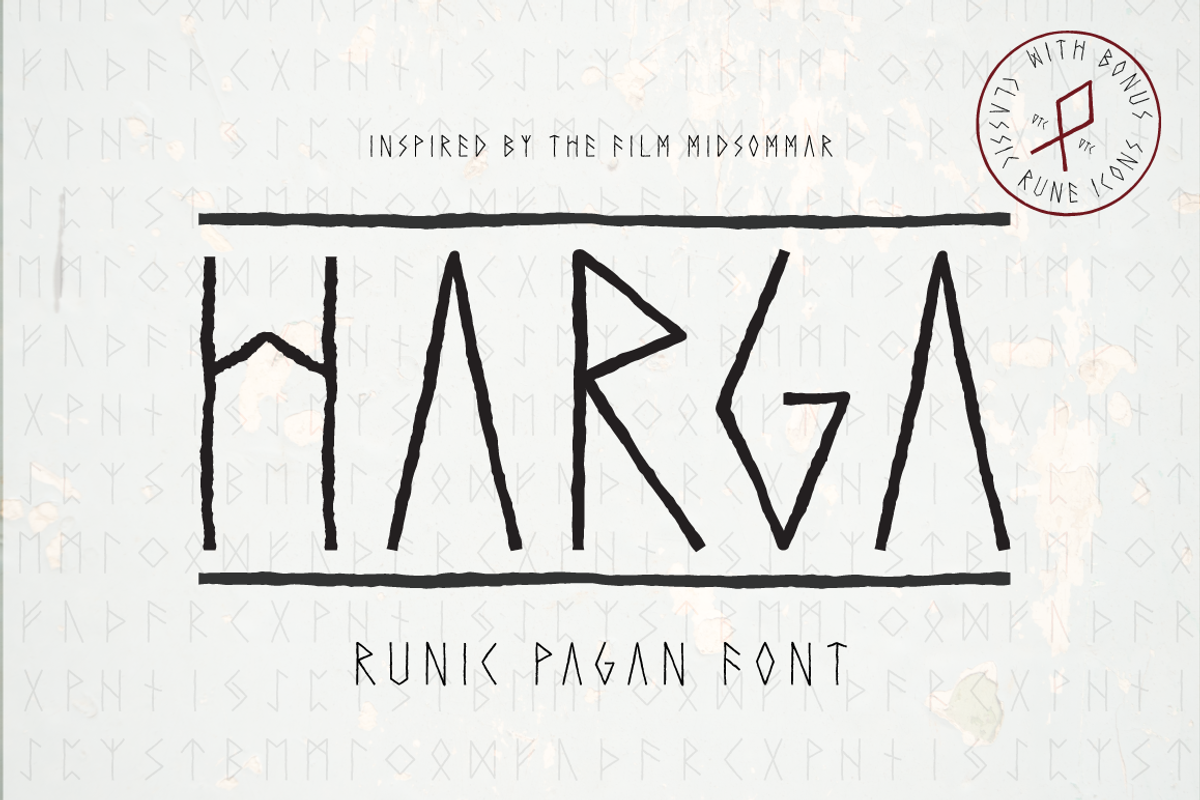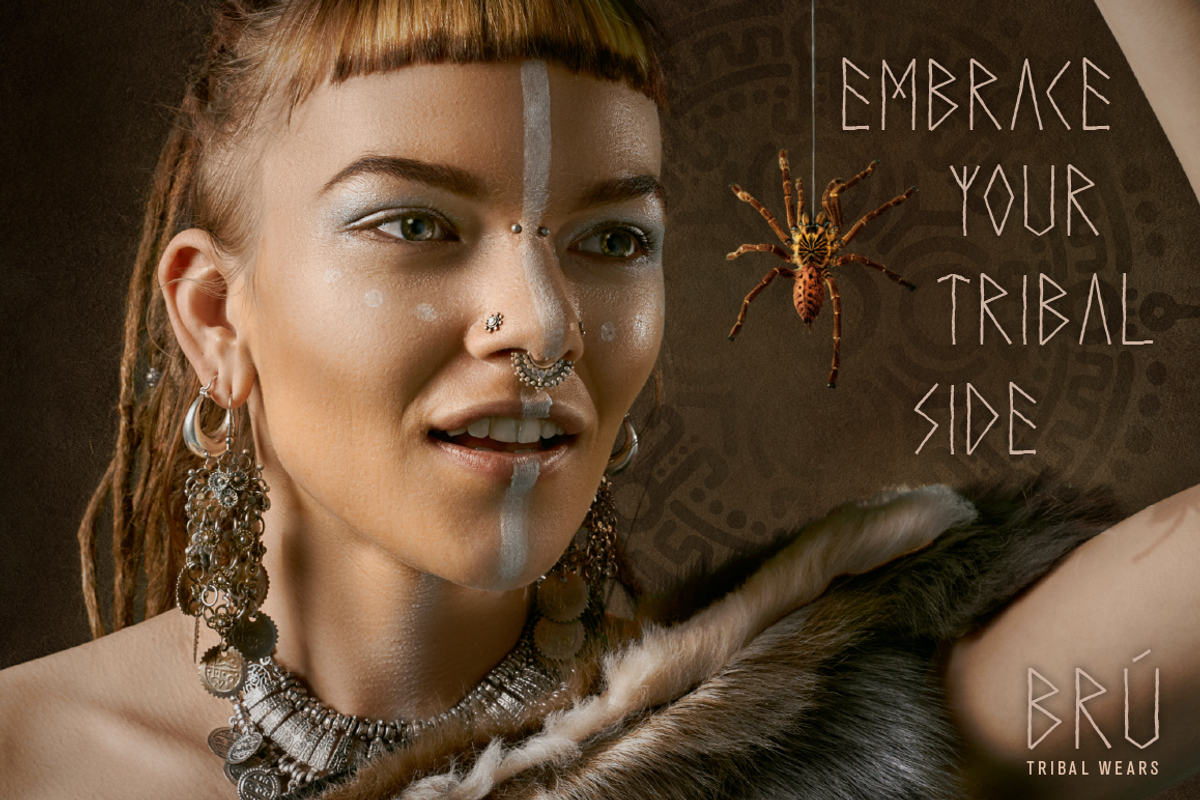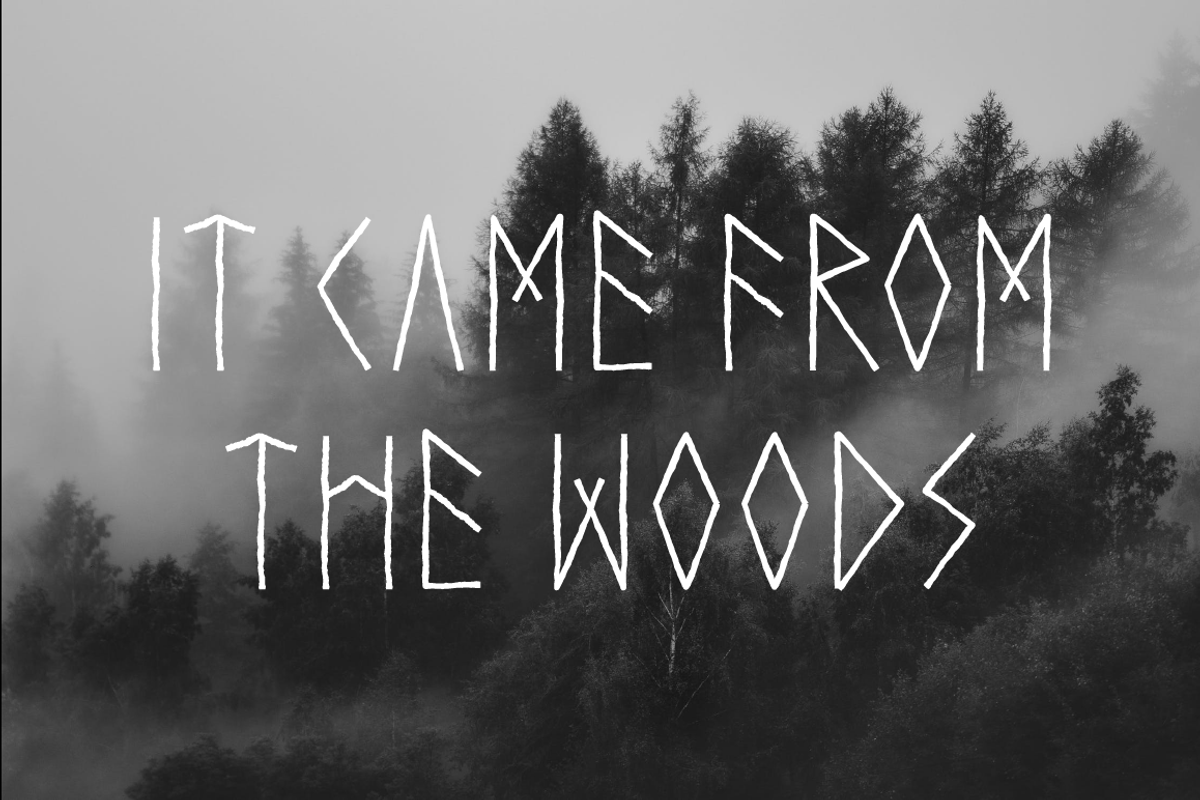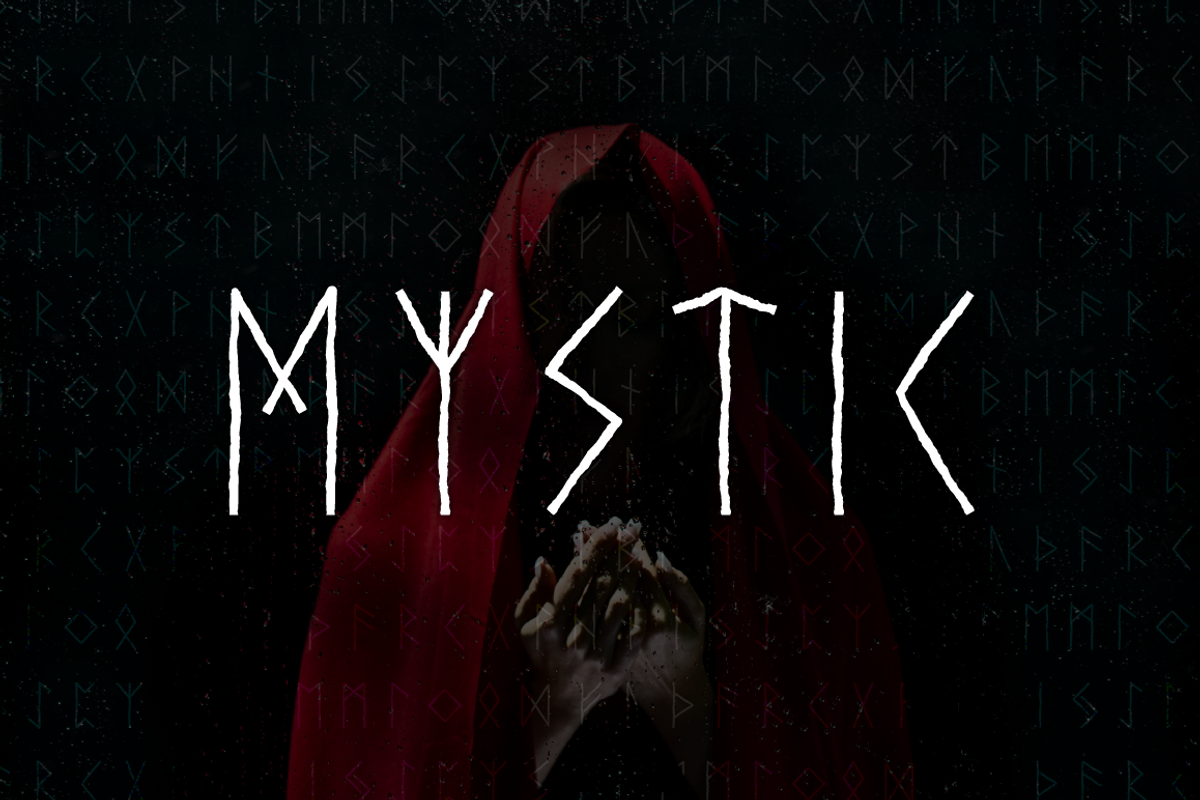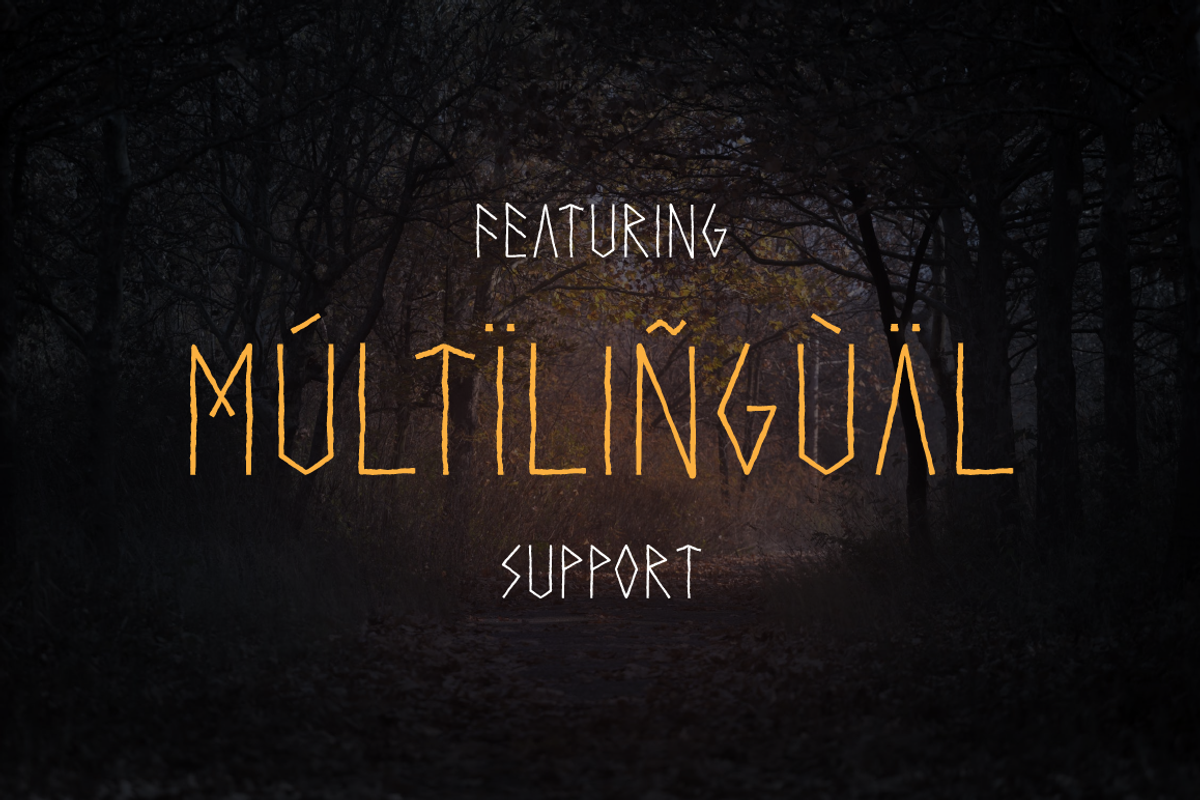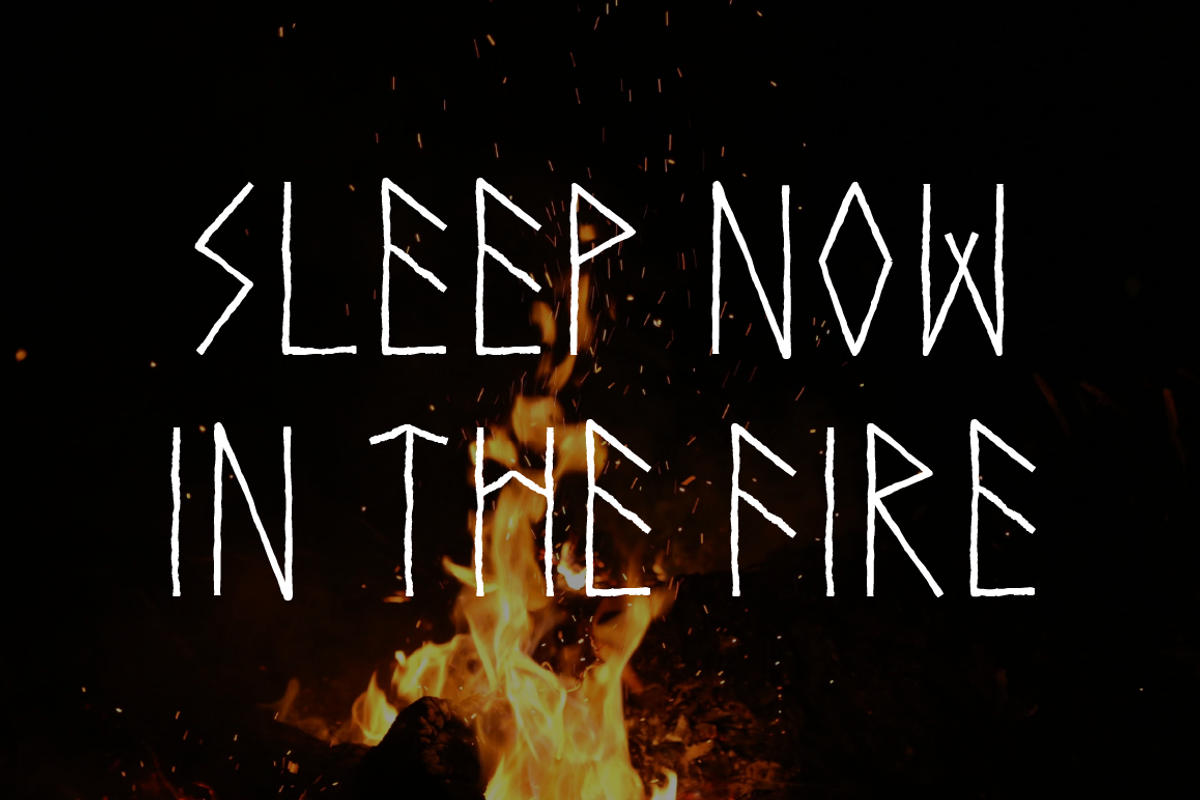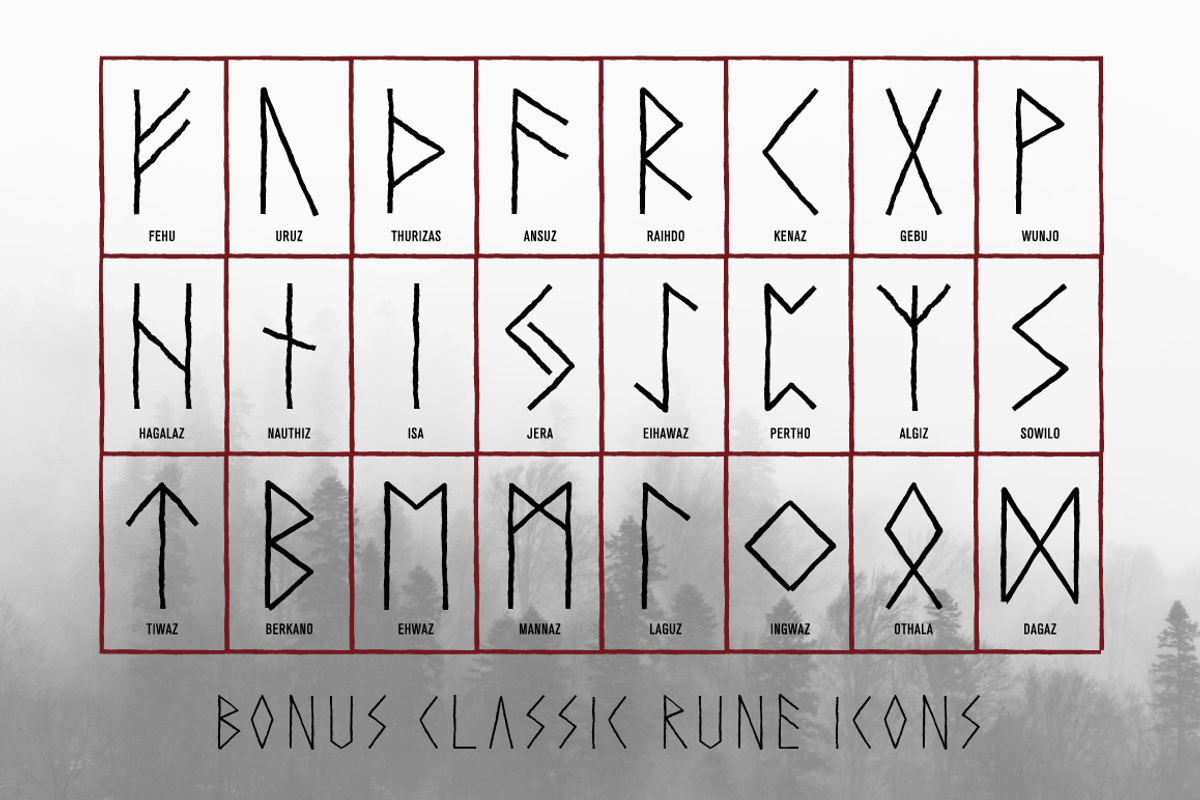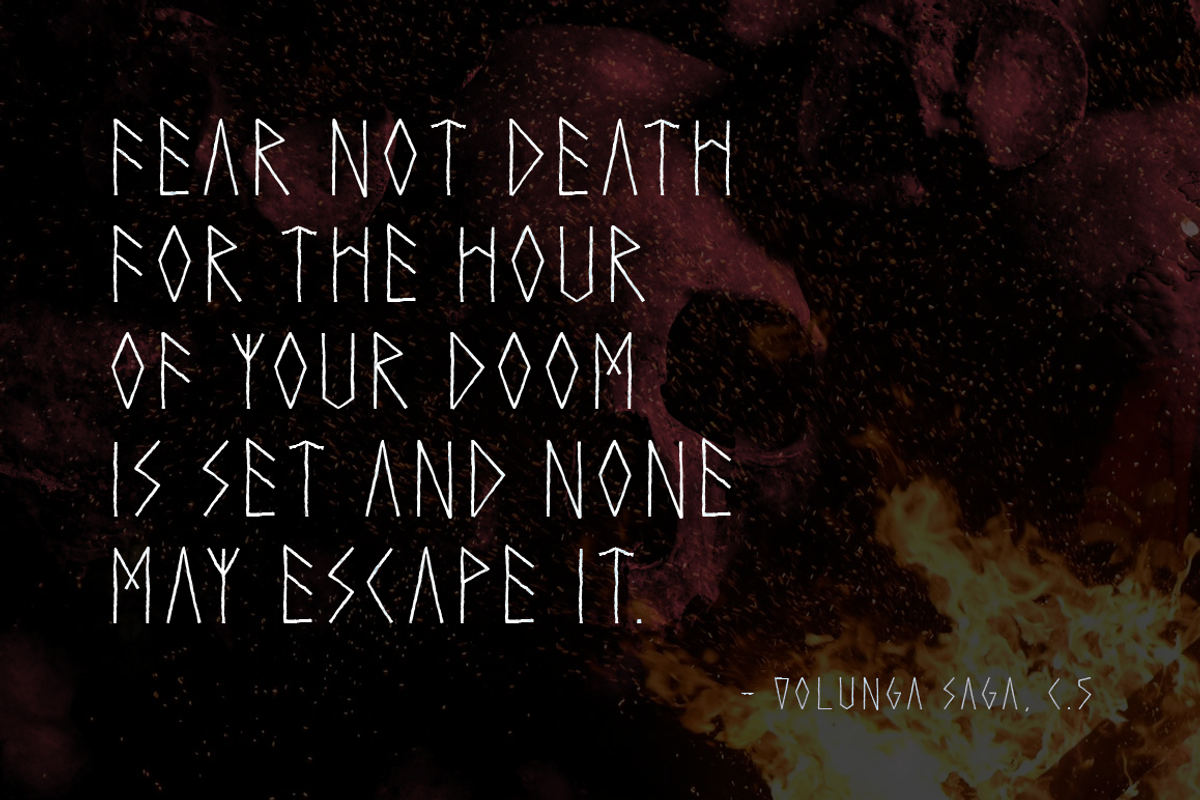
Harga Runic Pagan Font
Harga is a runic pagan display typeface inspired by the pagan cult in the horror movie Midsomar and ancient runes. Perfect for projects about cults, witchcraft, vikings, horror, paganism and more.
Harga features all caps, punctuation, numerals, as well as multi-language support characters.